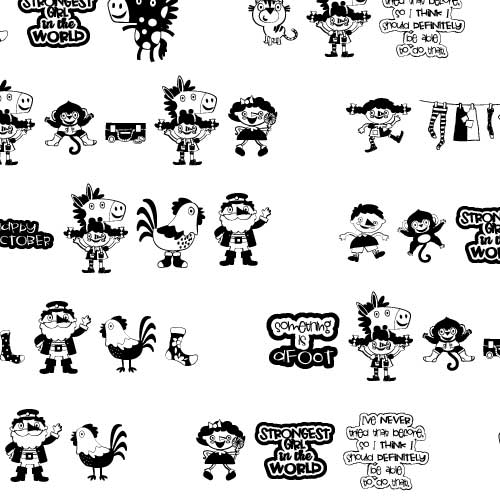
DB Rock My Socks Off - DB
This adorable doodle doodlebat font features 26 red-head and friends with playful socks -inspired images. Perfect for classrooms,,cards, crafts, gifts, planner stickers, scrap book pages, decor and more!